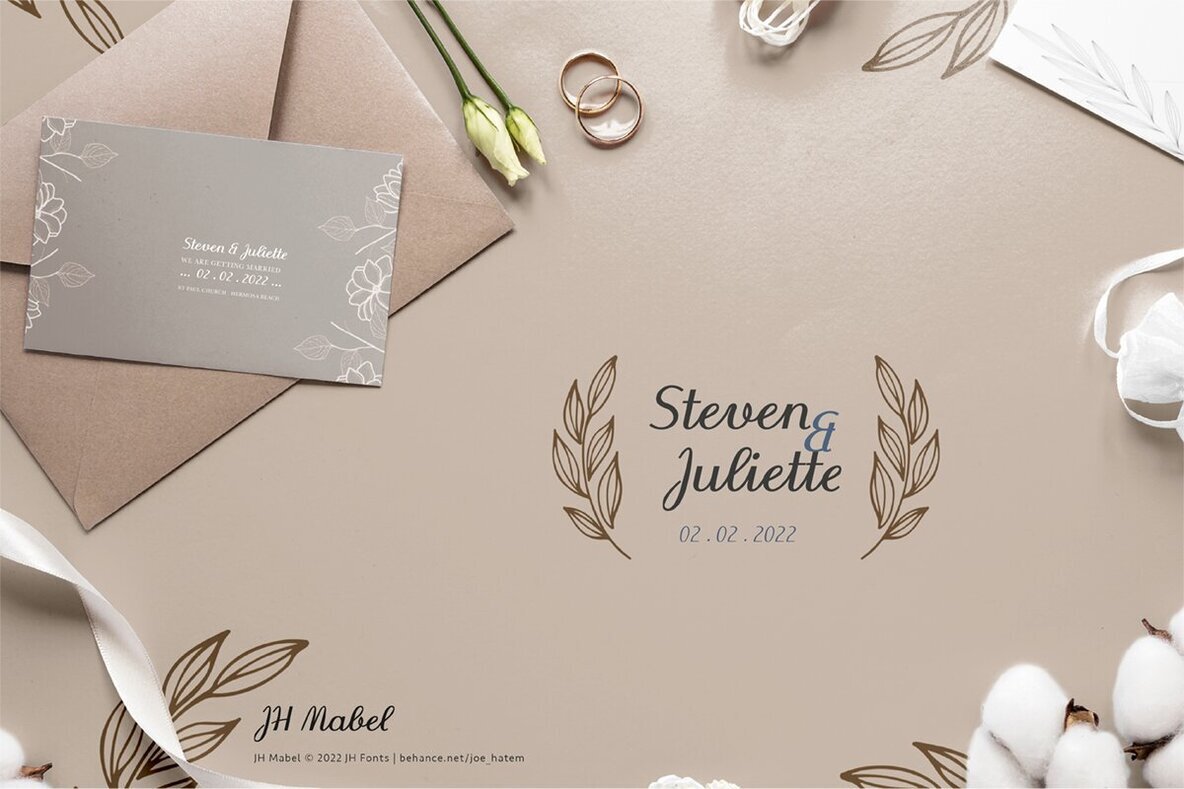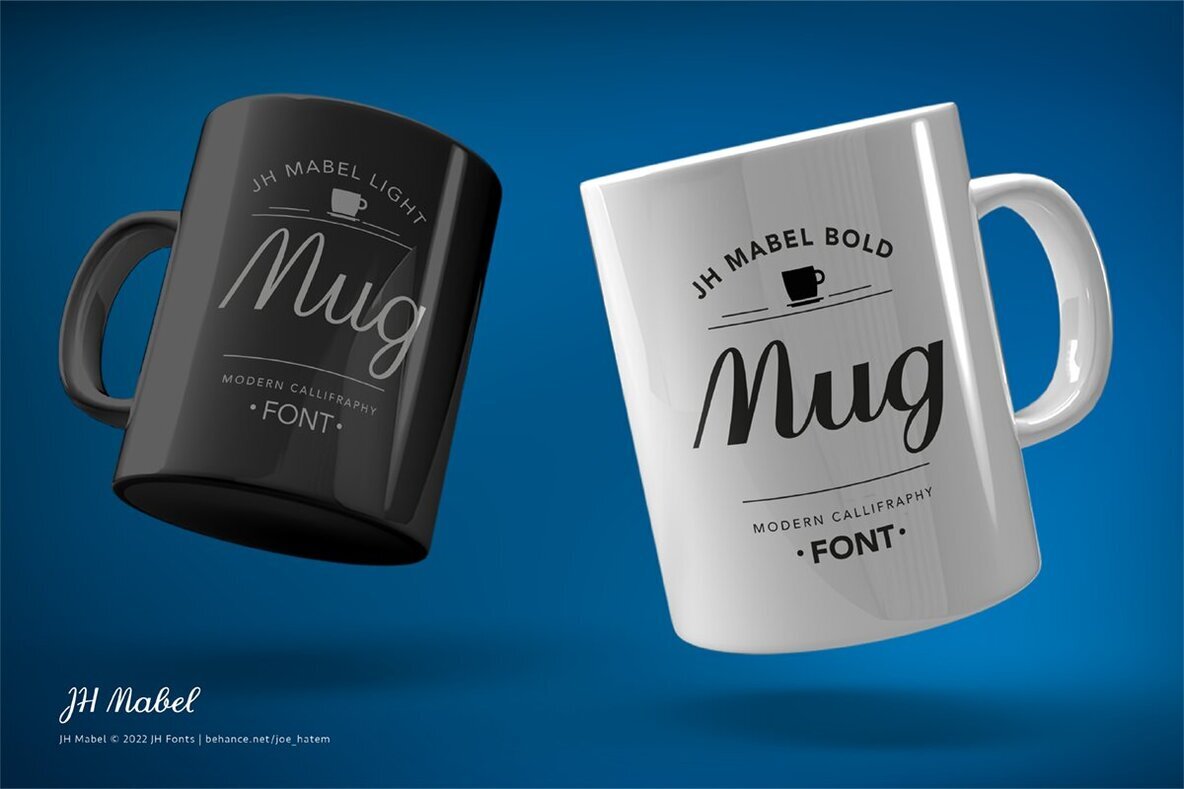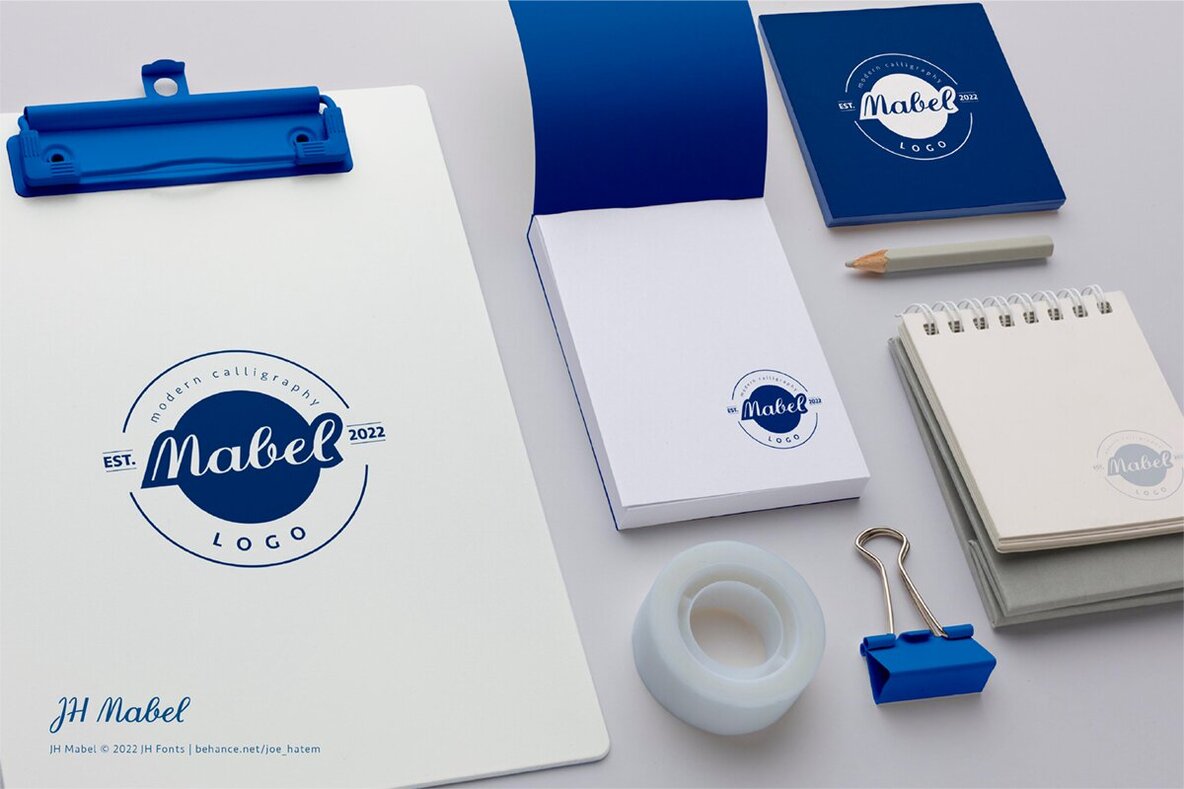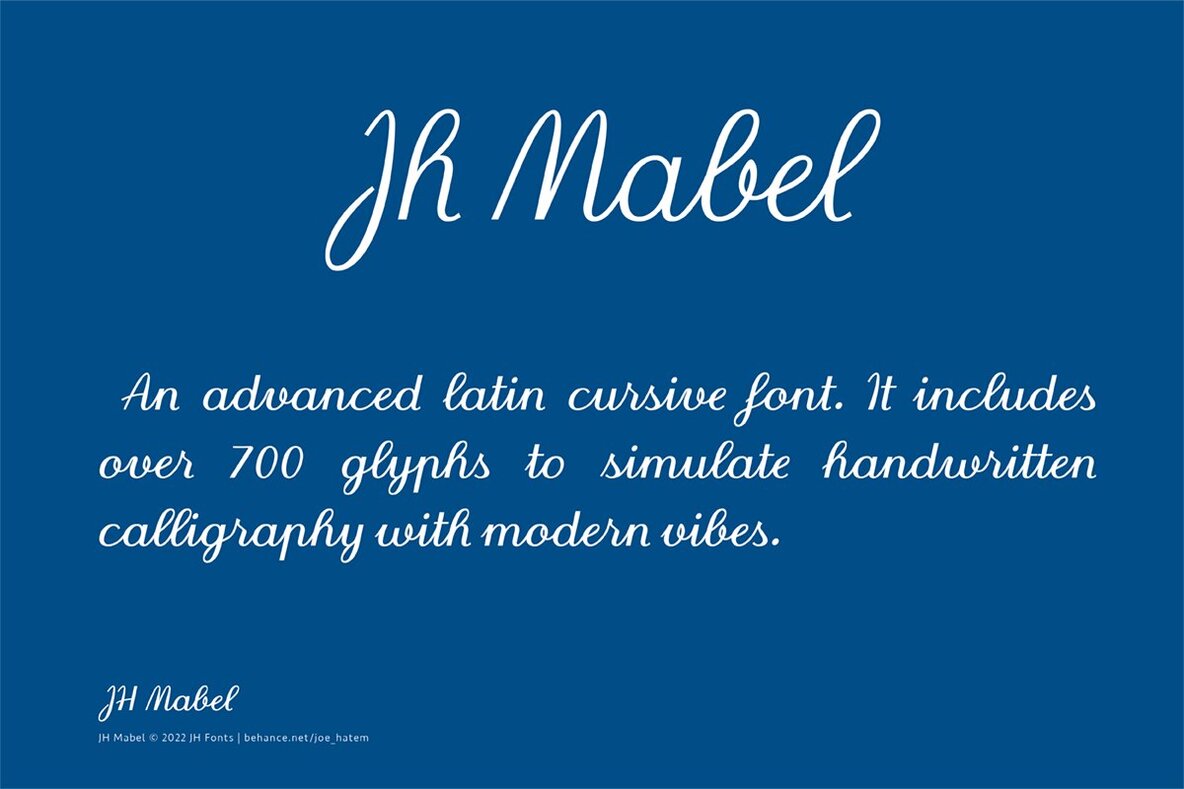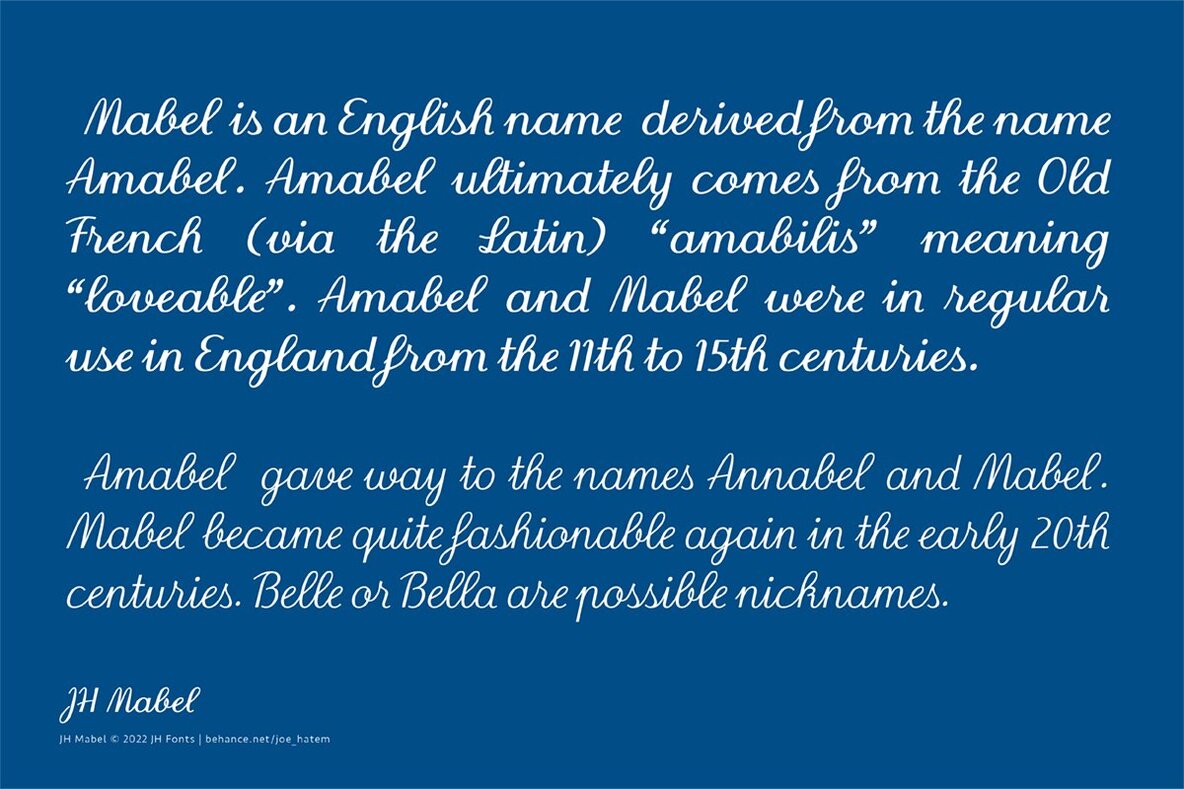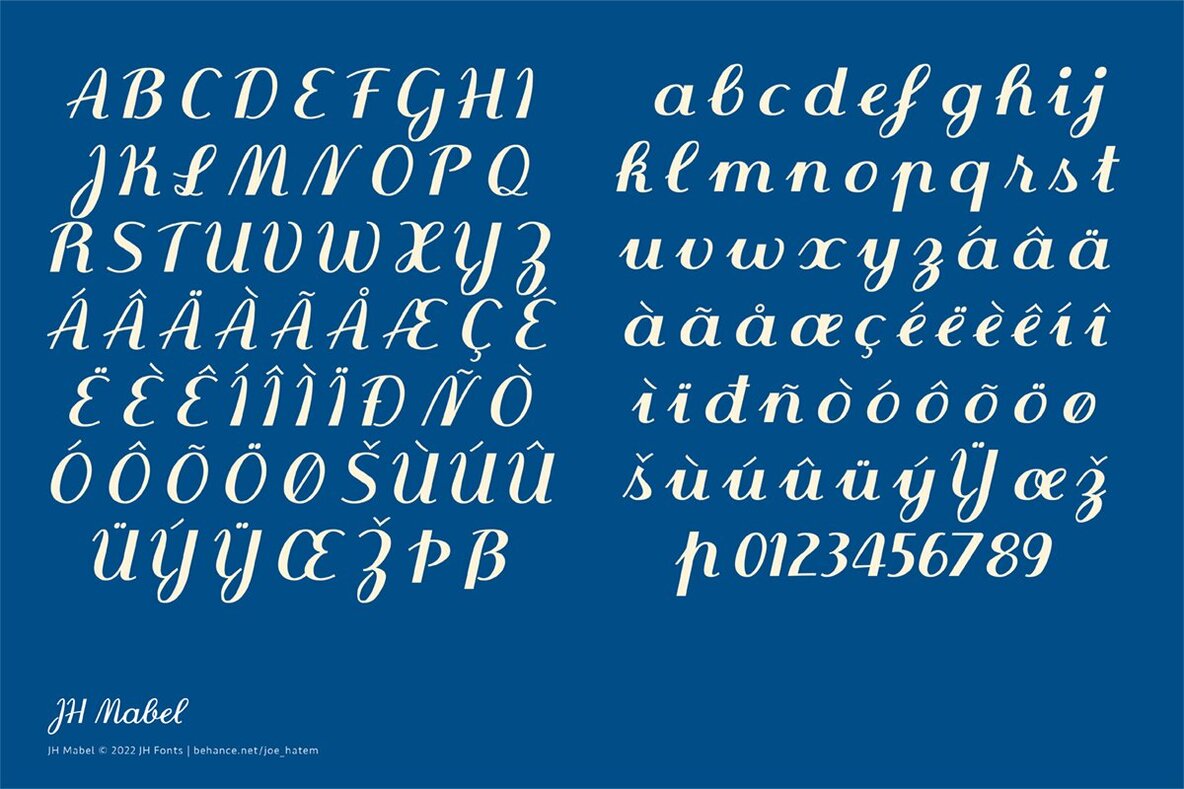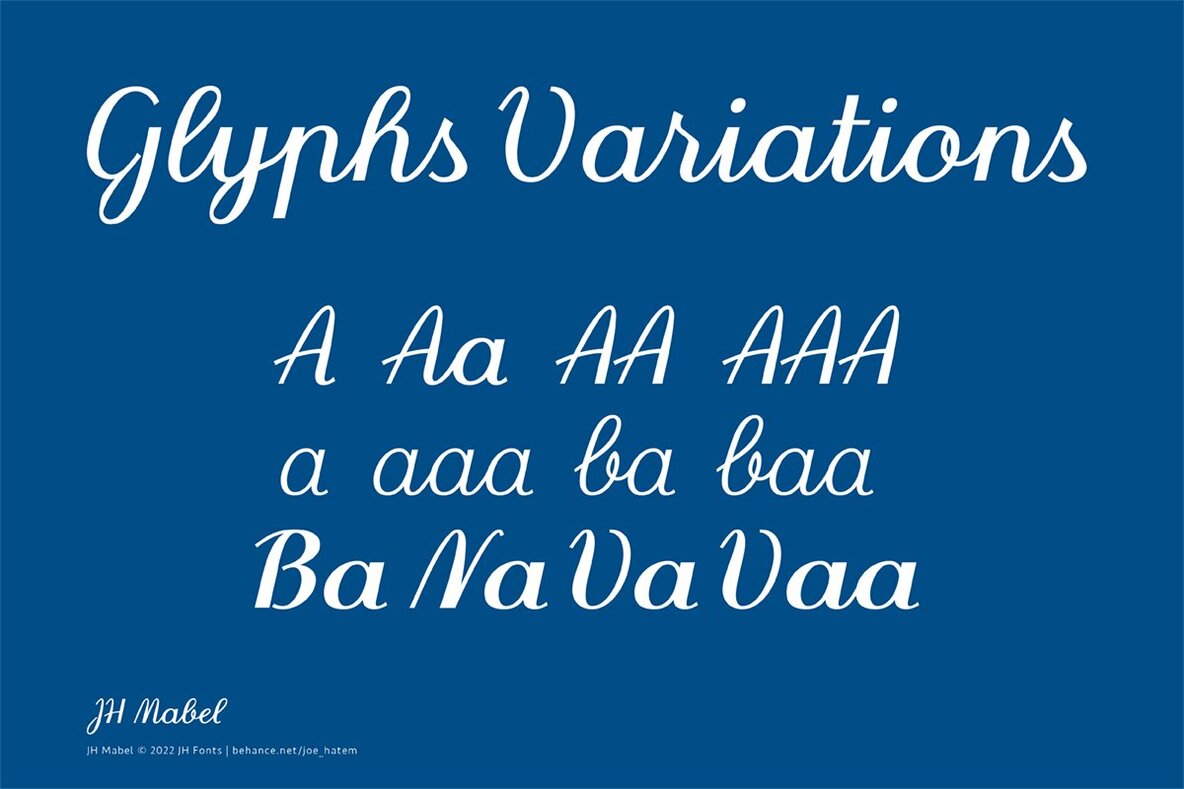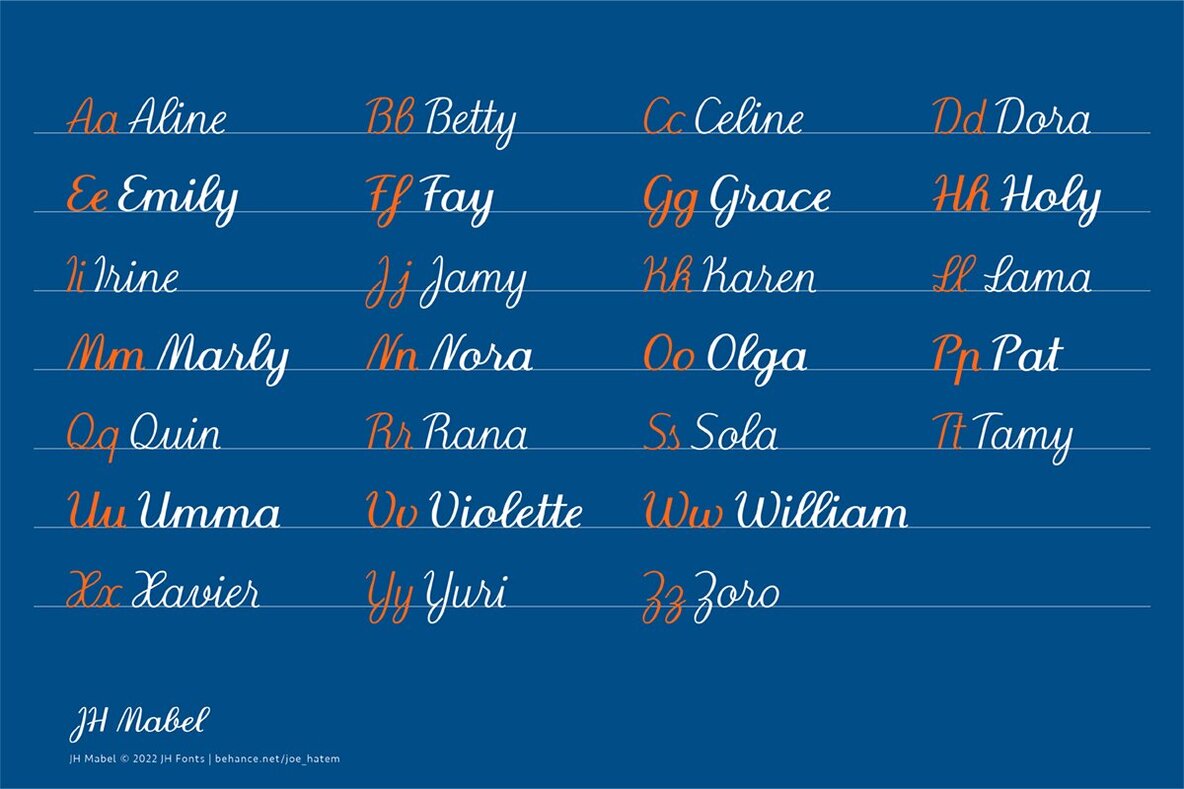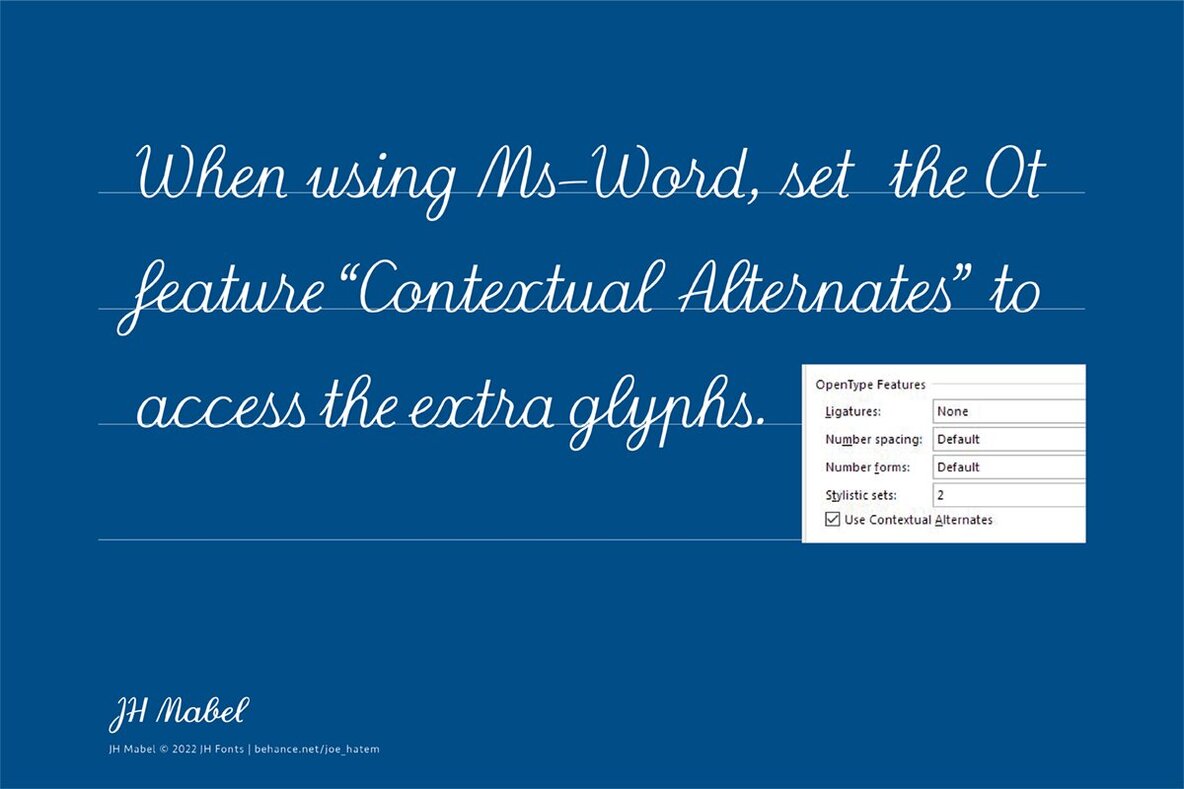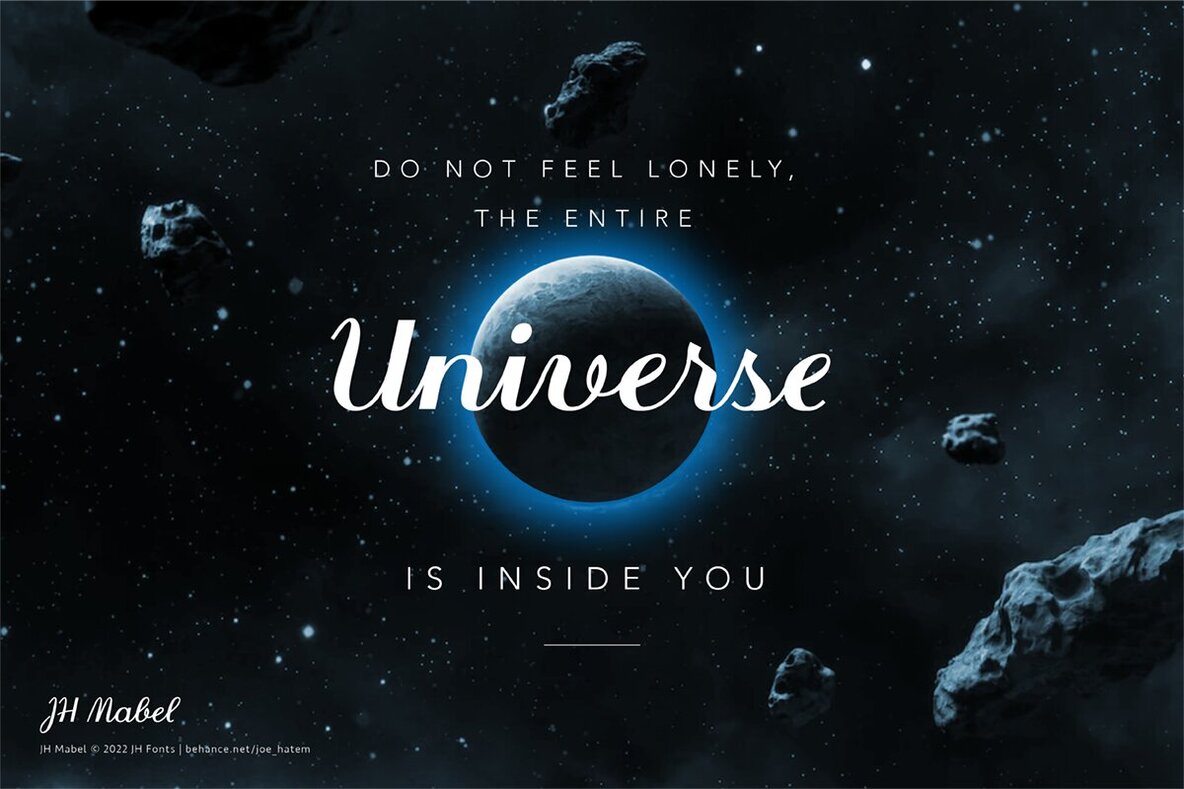
JH Mabel Font
JH Mabel is a sleek and contemporary cursive typeface that offers three distinct weights: light, medium, and bold. Designed to bring an authentic handwritten feel, it includes a variety of extra characters to closely mimic genuine handwriting.JH Mabel: A Modern Cursive Typeface